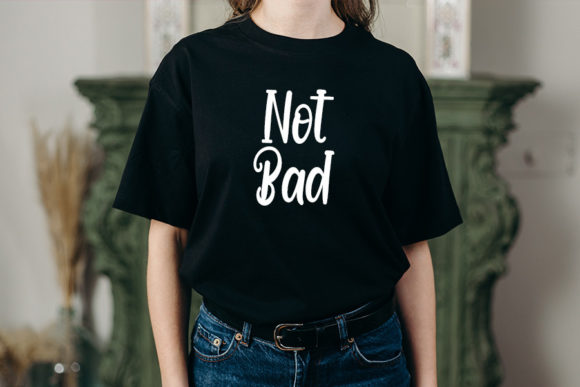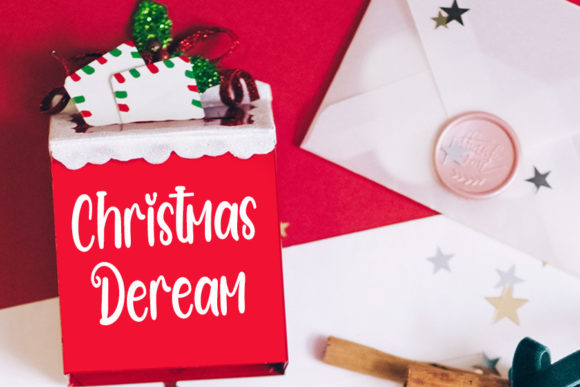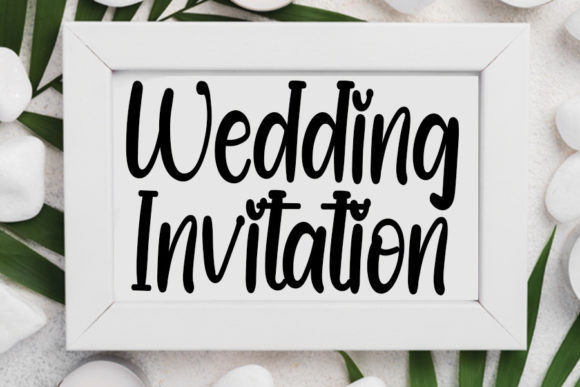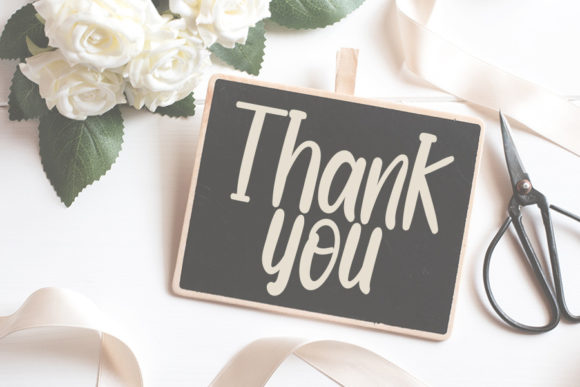
Minimalist Happiness Font
About Minimalist Happiness Font
Minimalist Happiness is a lovely and timeless handwritten font. It is the best choice for creating eye catching logos, branding and quotes. Every letter has a unique and beautiful touch, which will make your design come alive!